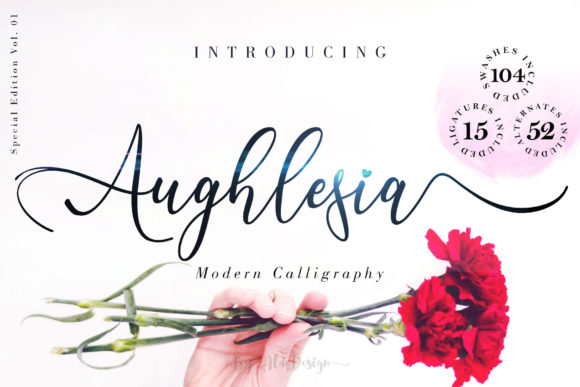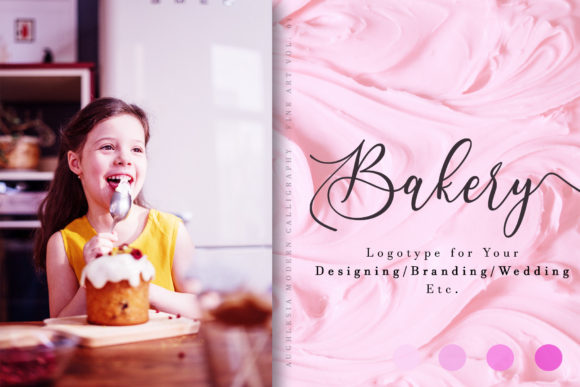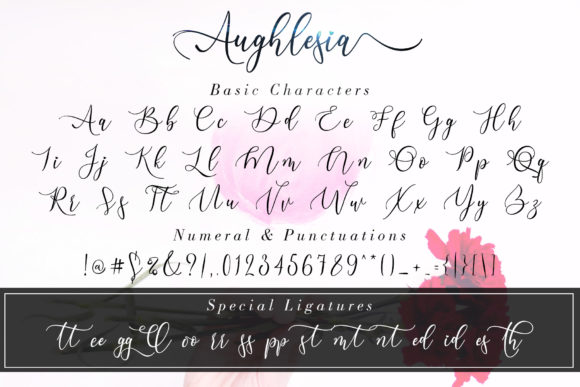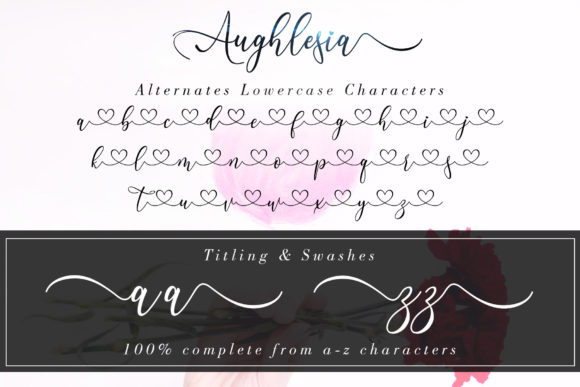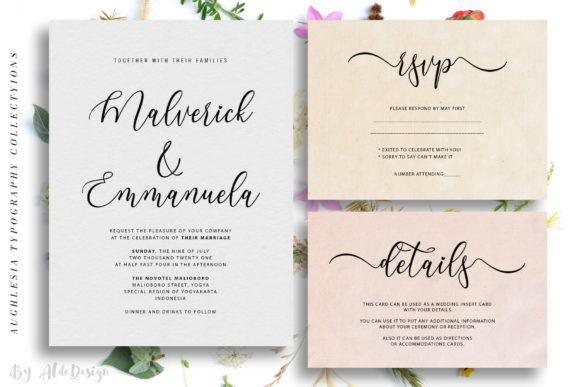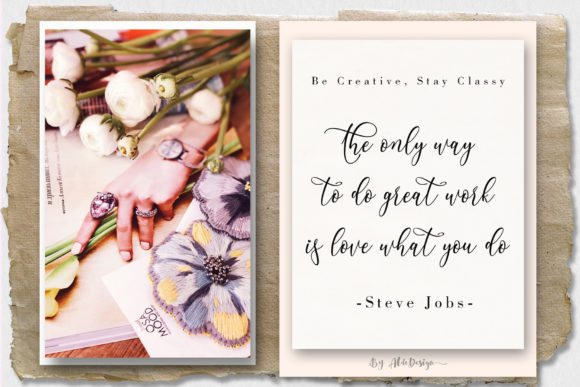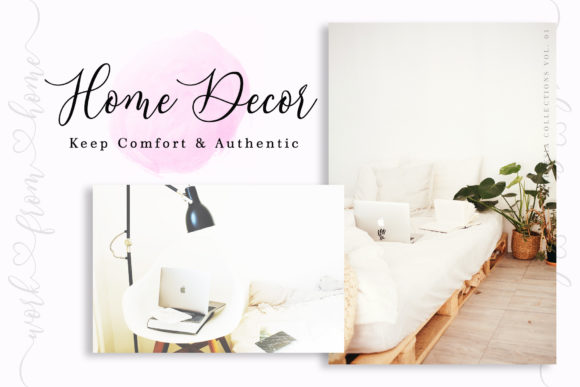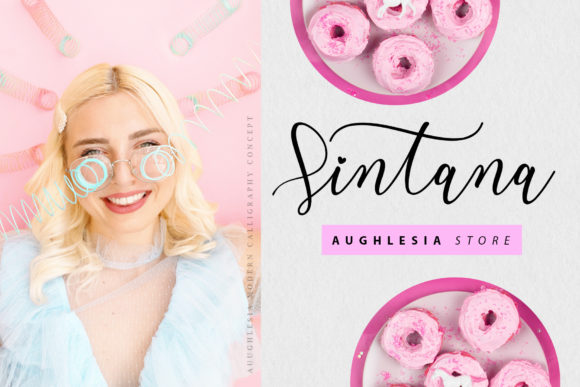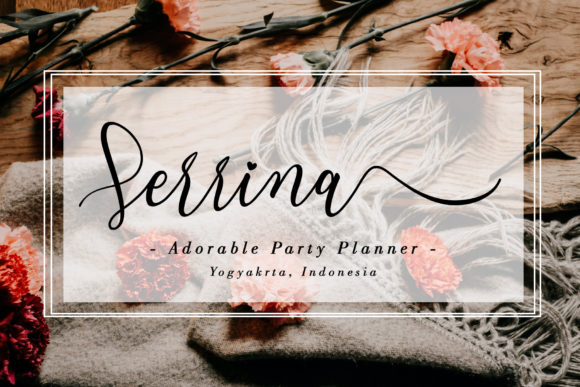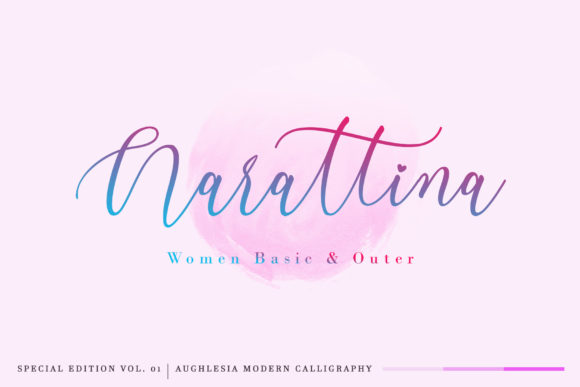
Aughlesia Font
About Aughlesia Font
Aughlesia is a modern handwritten font that brings its own unique style to any design project. It will elevate a wide range of design projects to the highest level, be it branding, headings, wedding designs, invitations, signatures, logos, labels, and much more!